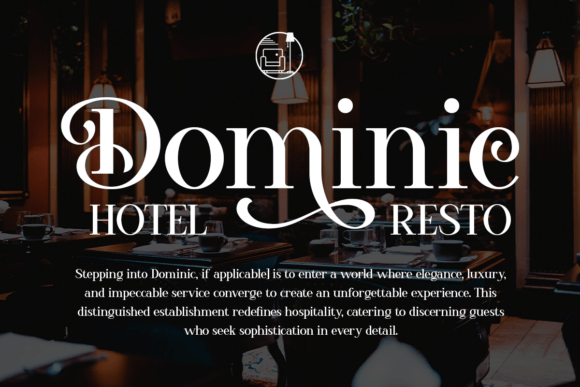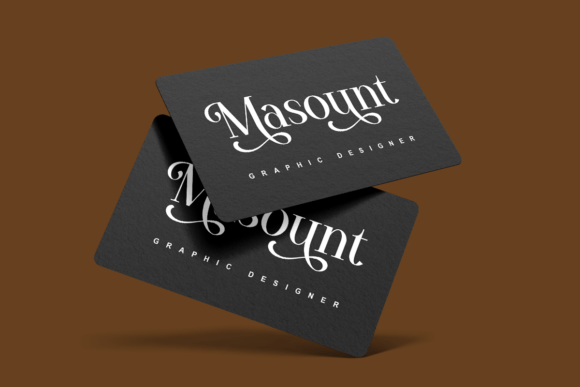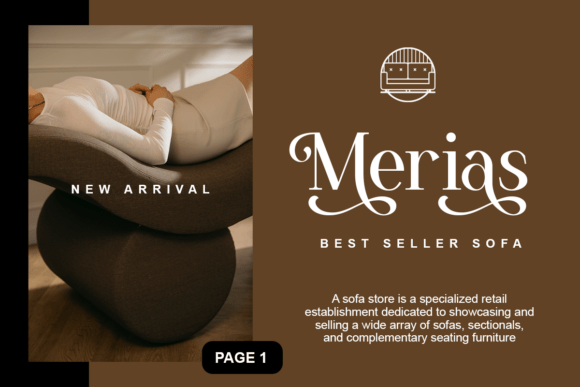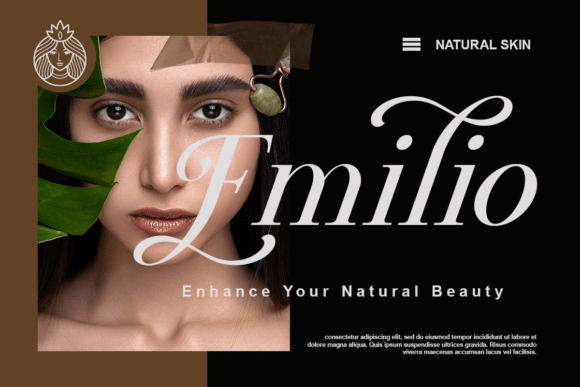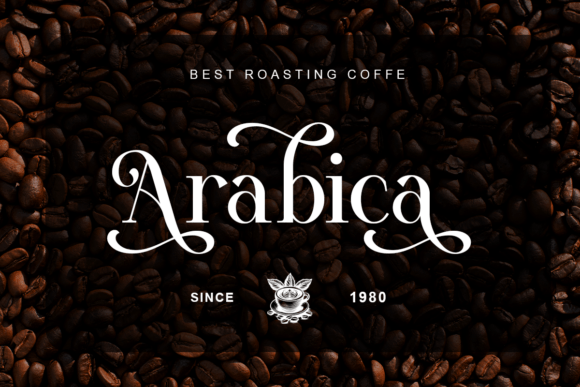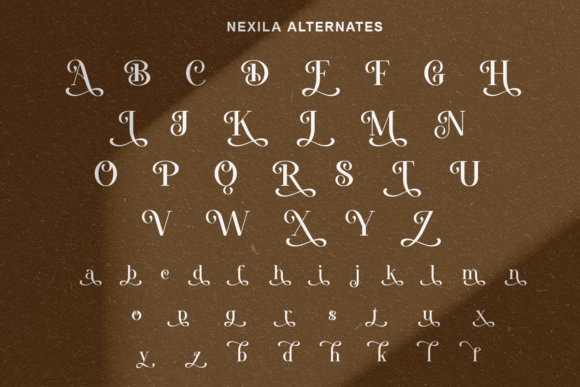
Introduction to Nexila Regular Font
Nexila is a luxurious serif font that masterfully blends modern and classic aesthetics.
Featuring elegant swash alternates, this typeface is perfect for crafting bold, gorgeous headlines and sophisticated designs with a unique flair Nexila’s contrasting line weights and gracefully curved terminals lend a sleek, refined look to logos, holiday cards, wedding invitations, quotes, advertisements, and a wide range of other high-end projects.
Key Features of Nexila Regular Font